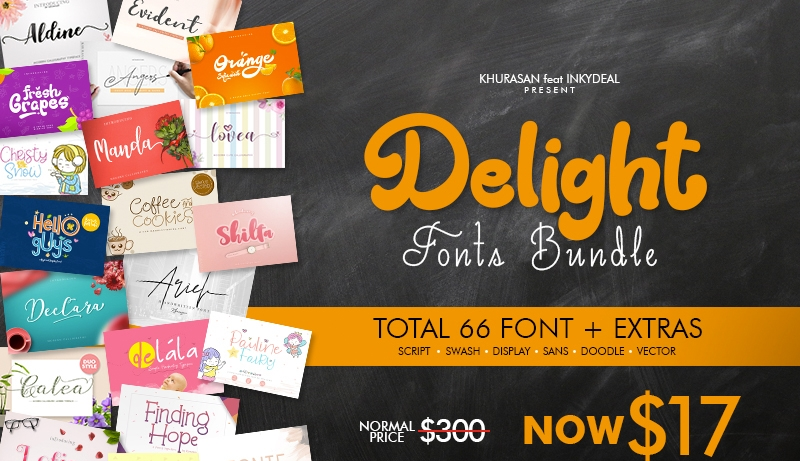
The Delight Fonts Bundle
The Delight Fonts Bundle offers a carefully curated selection of unique typefaces designed to elevate your creative projects. This collection features a variety of font styles, including script, serif, and sans-serif options, each with distinct weights and characteristics.
• Diverse font styles suitable for various design needs
• Multiple weights for added versatility
Each font in this bundle is crafted with precision, ensuring readability and aesthetic appeal. Whether you’re creating branding materials, logos, or web content, these fonts will provide the perfect touch.
• Utilize different weights for hierarchy in your designs.
• Combine styles for a unique look in branding projects.